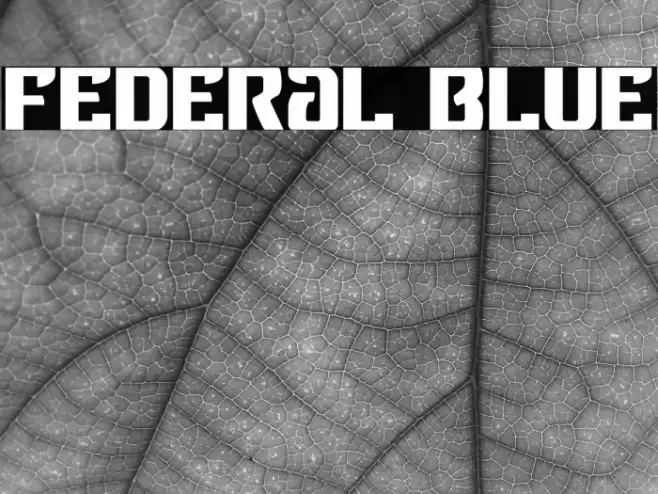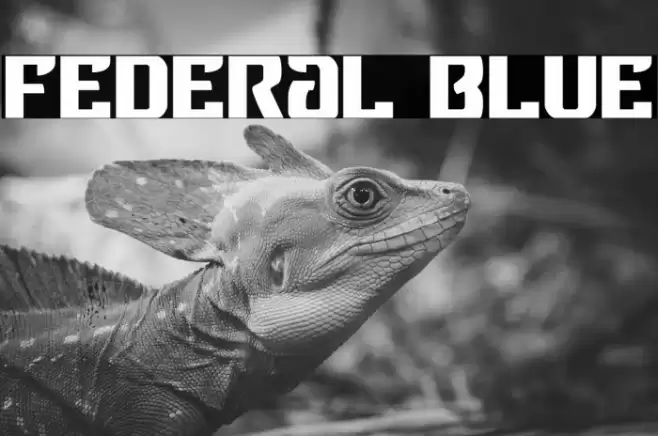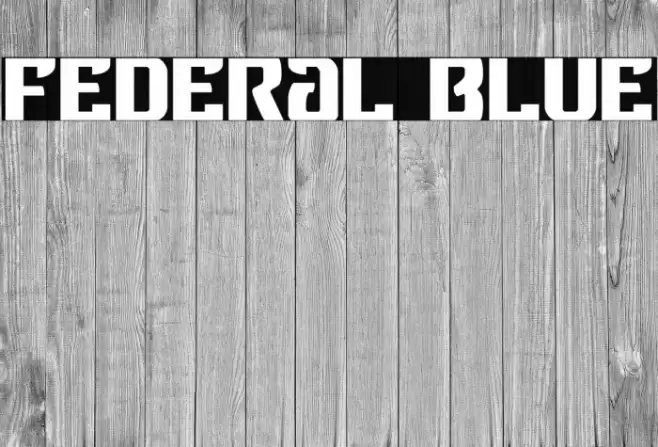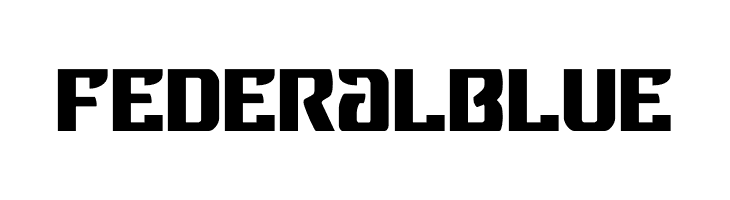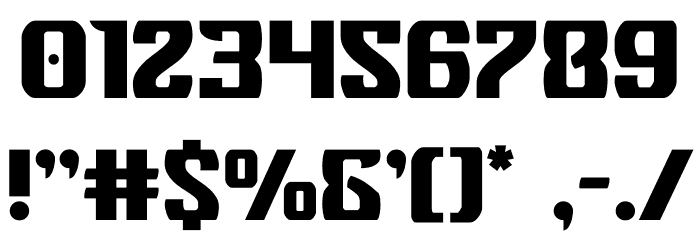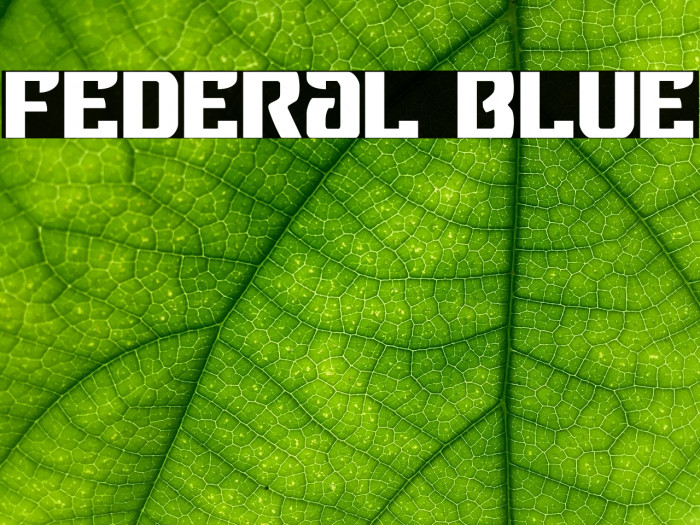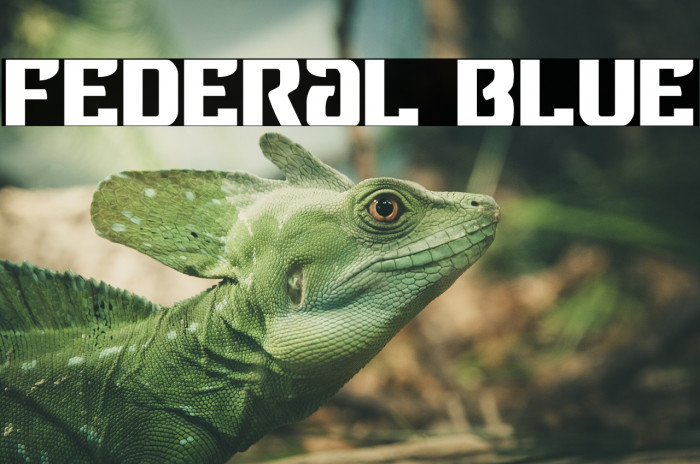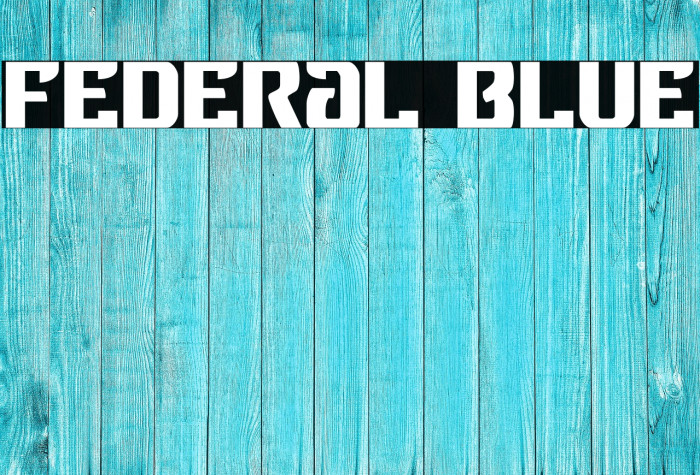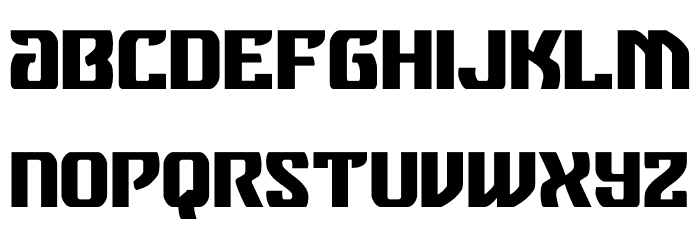
Federal Blue Font
Federal Blue Description
This font features a bold and striking design with a strong geometric influence. The characters are constructed with thick, block-like strokes that convey a sense of strength and stability. The uppercase letters have a uniform height, while the lowercase letters maintain a consistent style, enhancing readability. The numerals are equally bold, ensuring they stand out in any context. Special characters are designed with the same robust style, making them suitable for attention-grabbing displays. The overall appearance is modern and assertive, ideal for projects that require a commanding presence.
A bold, geometric font with strong, block-like strokes and a modern style from Uncategorized fonts.